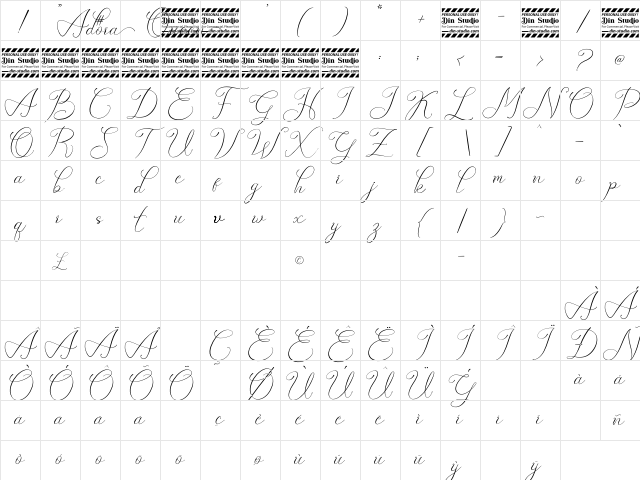
Adora Queen Personal Use Regular Free Font
Adora Queen Personal Use Regular
Designer: Donis Miftahudin
Design Context for Adora Queen Personal Use
Adora Queen Personal Use is a composed and adaptable typeface that performs quietly and consistently across a wide range of design contexts.